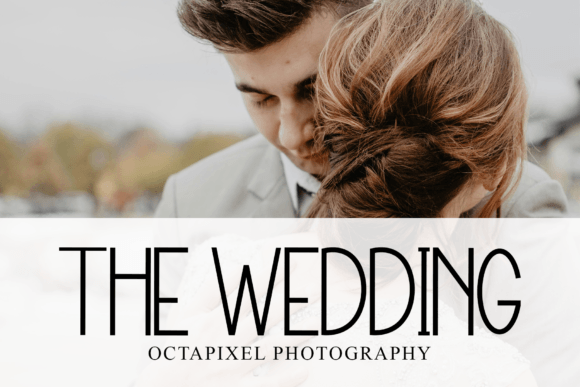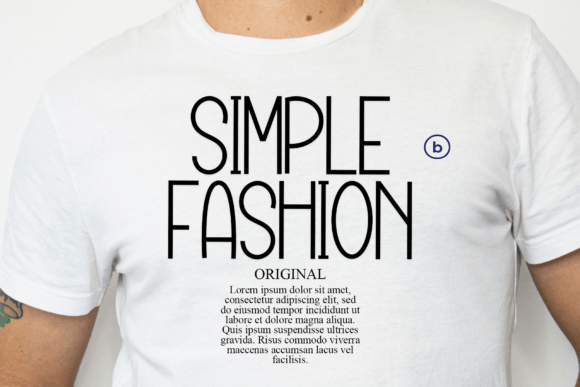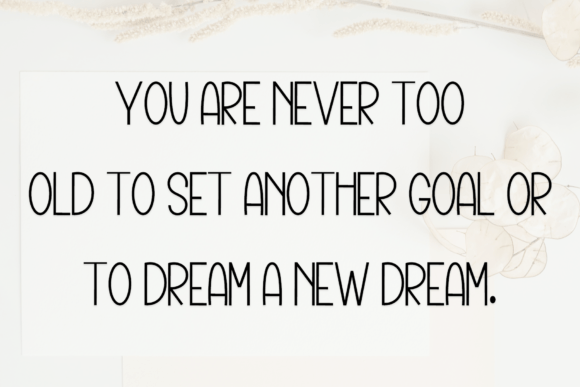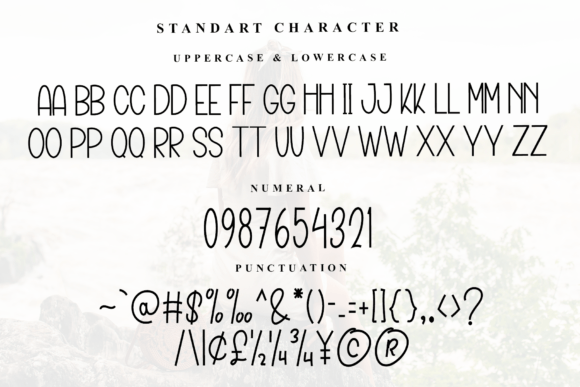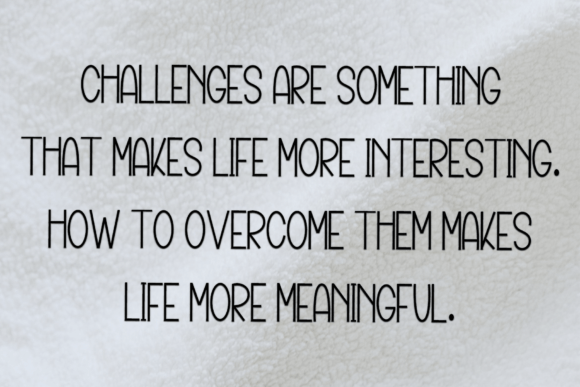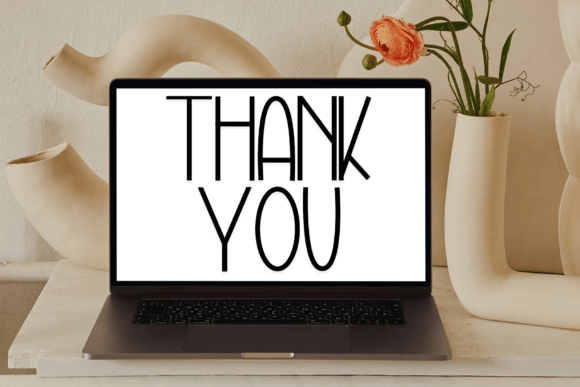
Introducing Design Handmade Font: A Timeless Handwritten Beauty
Are you tired of using generic, overused fonts in your designs? Look no further! Design Handmade Font is a lovely and timeless handwritten font that will add a touch of elegance and sophistication to your creations. In this article, we’ll dive into the features and benefits of this beautiful font, and explore how it can elevate your designs to the next level.
The Beauty of Handmade Fonts
Handmade fonts have a unique charm that sets them apart from digital fonts. They evoke a sense of warmth, personality, and human touch, making them perfect for designs that require a personal and emotional connection. Design Handmade Font is no exception. With its delicate and intricate strokes, this font is sure to capture the hearts of designers and crafters alike.
What Makes Design Handmade Font Special?
So, what makes Design Handmade Font stand out from the rest? Here are just a few of its remarkable features:
- Unique and Beautiful Touch: Every letter in Design Handmade Font has a distinct and beautiful touch, which will make your designs come alive!
- PUA Coded: This font is PUA (Private Use Area) coded, which means you can access all the amazing glyphs and ligatures easily. This feature makes it simple to use and customize the font to suit your design needs.
- Eyecatching Logos and Branding: Design Handmade Font is the perfect choice for creating eye-catching logos, branding, and quotes that will leave a lasting impression on your audience.
Design Handmade Font is a versatile font that can be used in a variety of design projects, including:
- Logos and Branding: Create stunning logos and branding materials that reflect your brand’s personality and style.
- Quotes and Posters: Add a touch of elegance and sophistication to your quotes and posters with this beautiful handmade font.
- Stationery and Invitations: Use Design Handmade Font to create beautiful stationery, invitations, and greeting cards that will make your recipients feel special.
Tips for Using Design Handmade Font
To get the most out of Design Handmade Font, here are a few tips to keep in mind:
- Experiment with Font Sizes: Play around with different font sizes to create visual interest and hierarchy in your designs.
- Pair with Other Fonts: Combine Design Handmade Font with other fonts to create a unique and eye-catching typography.
- Use Ligatures and Glyphs: Take advantage of the font’s PUA coding to access ligatures and glyphs that will add an extra touch of elegance to your designs.